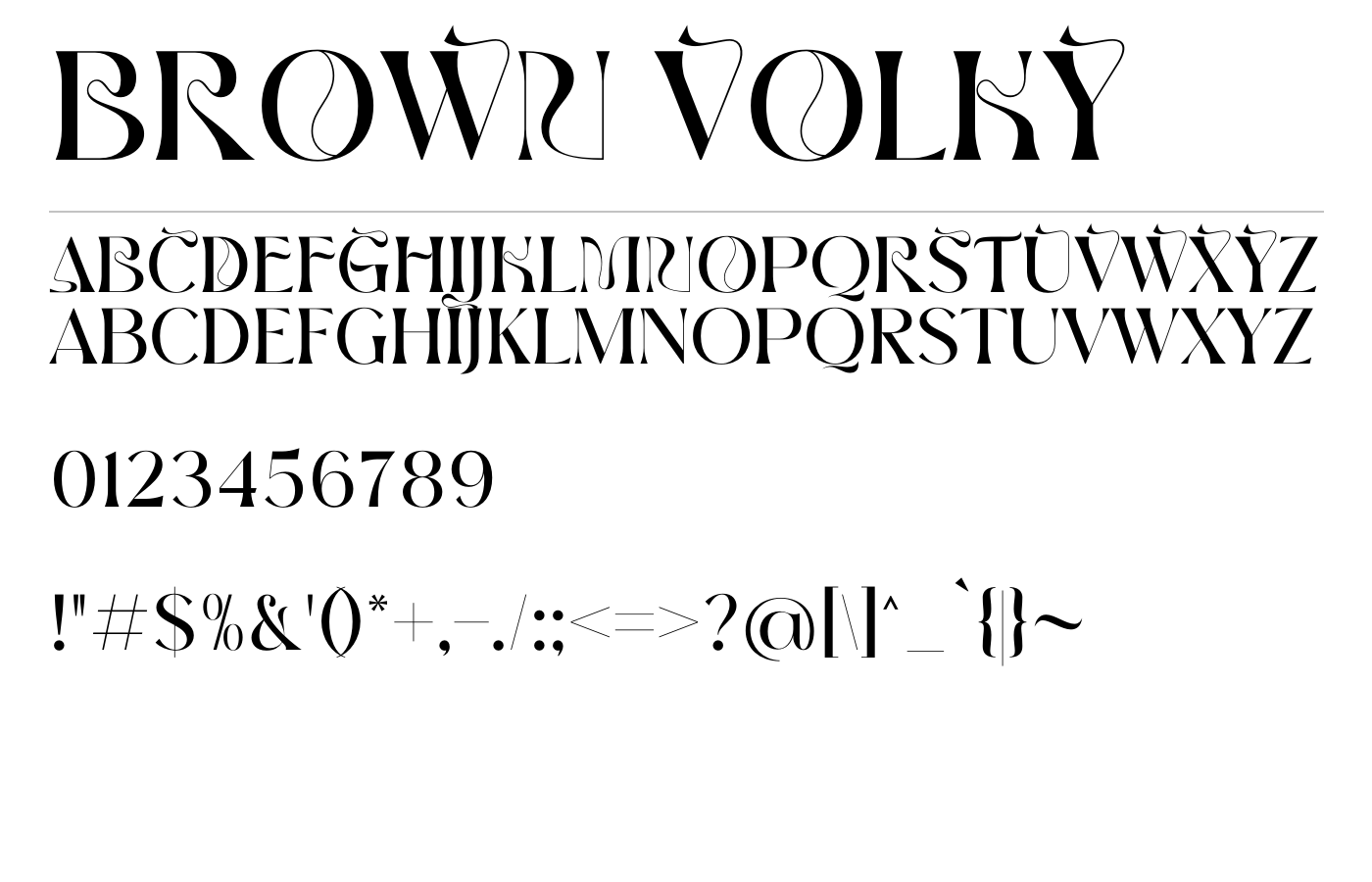
Brown Volky is a striking serif display font with a high contrast between thick and thin strokes, featuring elegant, sharp serifs and artistic flourishes that lend it a luxurious, sophisticated feel. Its tall, narrow letterforms and unique decorative elements make it ideal for high-end branding, editorial headlines, and fashion packaging where a bold, modern yet classy impression is desired.
BROWN VOLKY Font
About BROWN VOLKY Font